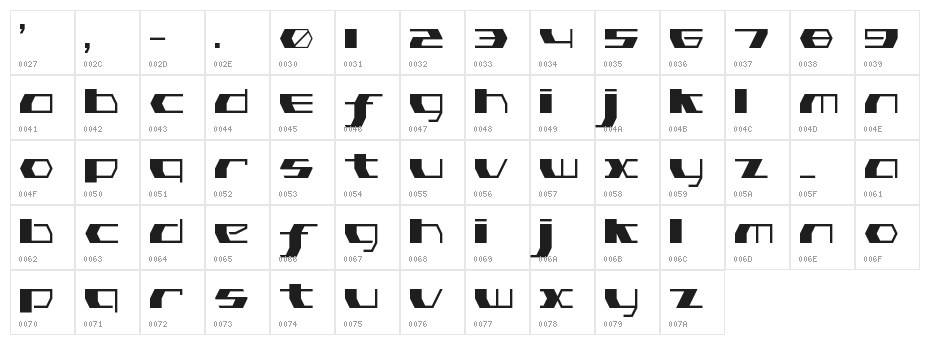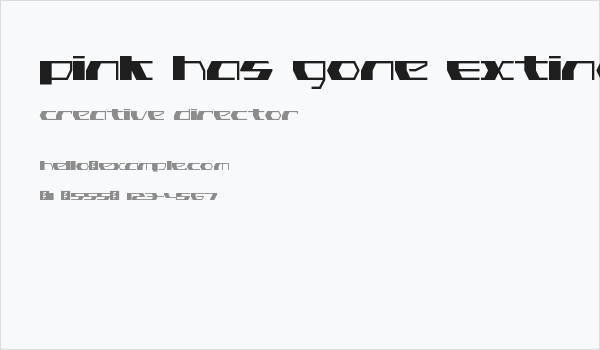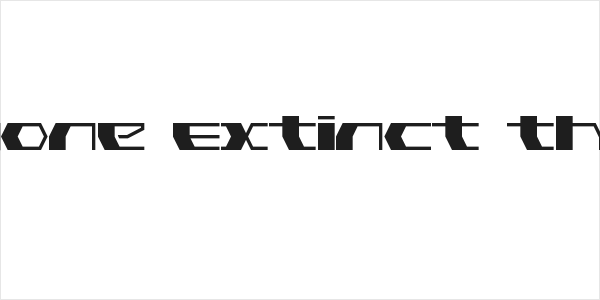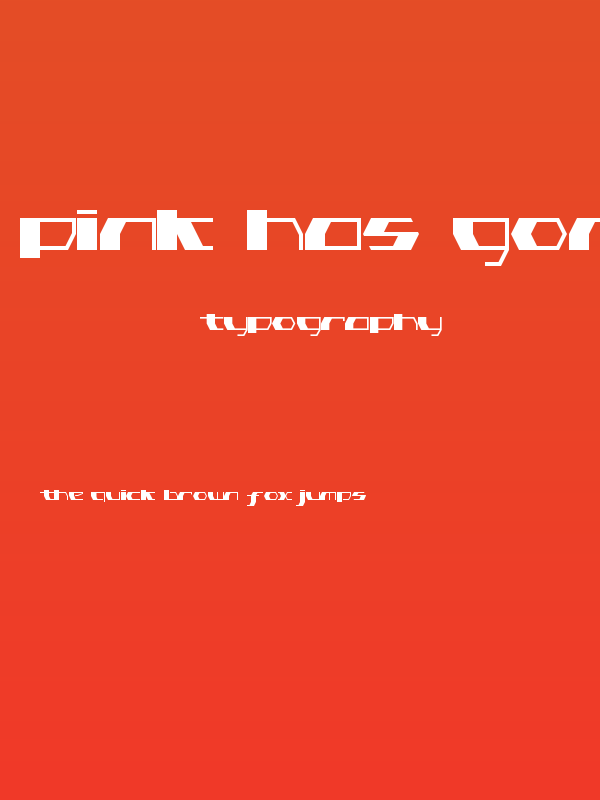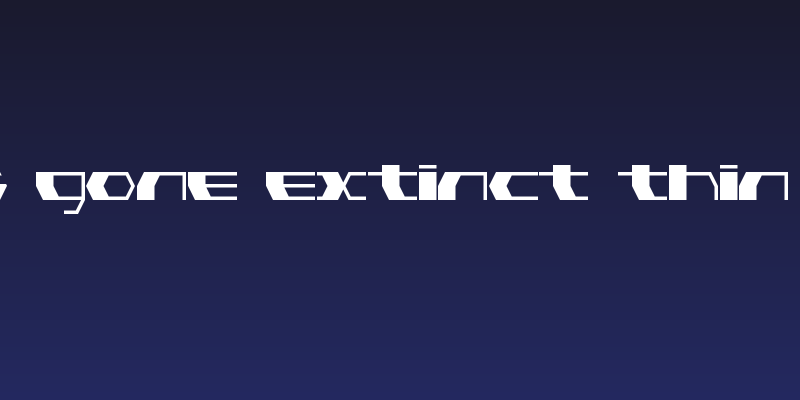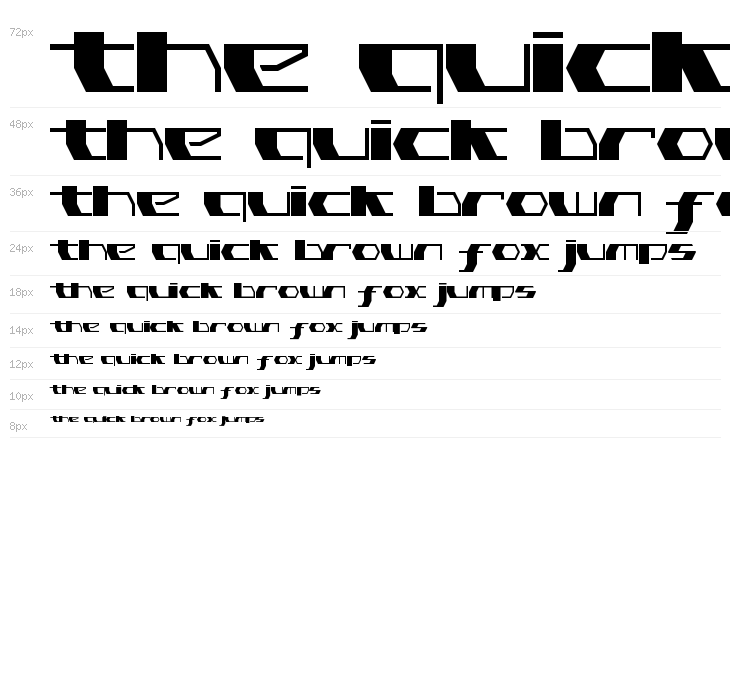
Pink Has Gone Extinct Thin Regular Font
Pink Has Gone Extinct Thin Regular Description
This font features a futuristic and geometric design, characterized by sharp angles and bold, block-like structures. The letters are constructed with a unique combination of thick and thin strokes, creating a high contrast that enhances its modern appeal. The uppercase and lowercase letters maintain a consistent style, with angular cuts and a distinct lack of curves, giving it a digital or tech-inspired look. The numbers follow the same design principles, ensuring uniformity across all characters. Special characters are also included, maintaining the same geometric style. This font is ideal for projects that require a contemporary and edgy aesthetic.
| Proposed Projects | Ideal for tech branding, digital media, video game design, and modern advertising. |